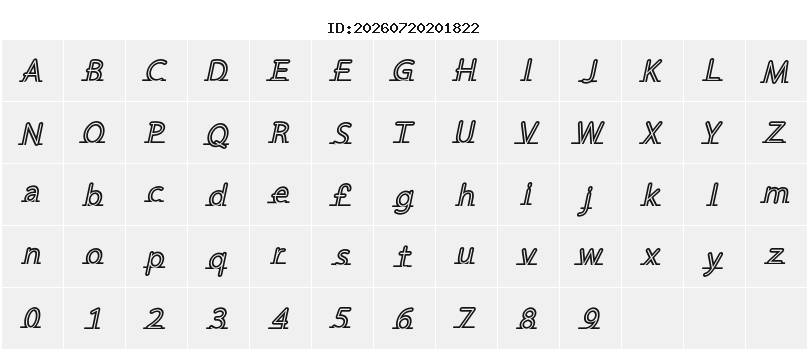
Fortrack Preview
• Font Name: Fortrack
• Designer: Tommy Suhartomo
About Fortrack.otf
Fortrack.otf is a modern, elegant sans-serif font designed for ultimate readability and visual harmony. Perfect for branding, headlines, web design, and print materials.